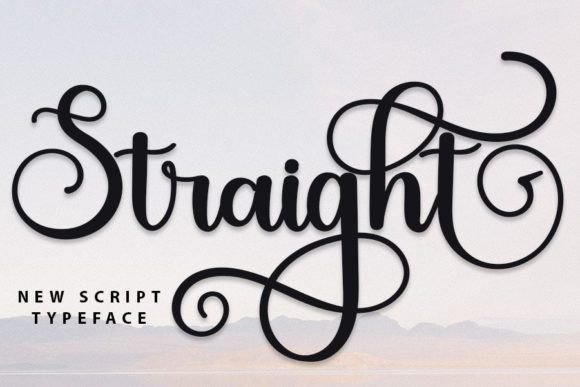
Discover the captivating allure of Straight Font, a stunning addition to our collection of Best Fonts for Web Design 2015. Created by the talented team at Inermedia STUDIO, this script font exudes modern elegance and flawless craftsmanship.
Straight Font presents a contemporary atmosphere with its stylish handwritten design, inspired by the timeless art of classic calligraphy. Every curve and stroke of this font has been meticulously crafted to perfection, ensuring a visually pleasing and eye-catching appearance for your projects.
What sets Straight Font apart is its impeccable form and balance. The carefully curated design allows the font to seamlessly enhance the beauty and aesthetics of your creative endeavors. Whether you're designing a logo, website, or any other visual project, Straight Font will add a touch of sophistication and professionalism.
But that's not all - Straight Font also offers incredible versatility. With its PUA encoding, accessing the vast array of amazing glyphs and ligatures is a breeze. Unleash your creativity and explore the endless possibilities this font has to offer. Let your imagination soar as you effortlessly create unique and personalized designs.
By choosing Straight Font, you're not only investing in a high-quality typeface, but you're also investing in a world of creativity. This font will captivate your audience, conveying emotions and evoking a sense of charm and elegance. Stand out from the crowd and leave a lasting impression with Straight Font.